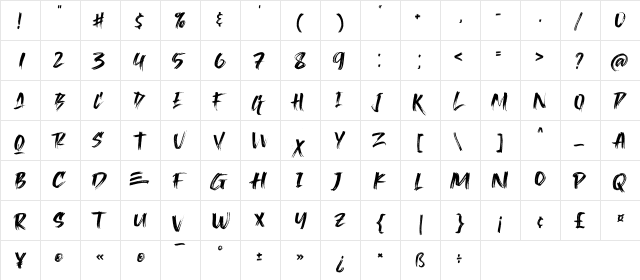
Caendr Regular
Design Context for Caendr Typeface
Caendr is a composed and adaptable typeface that performs quietly and consistently across a wide range of design contexts.